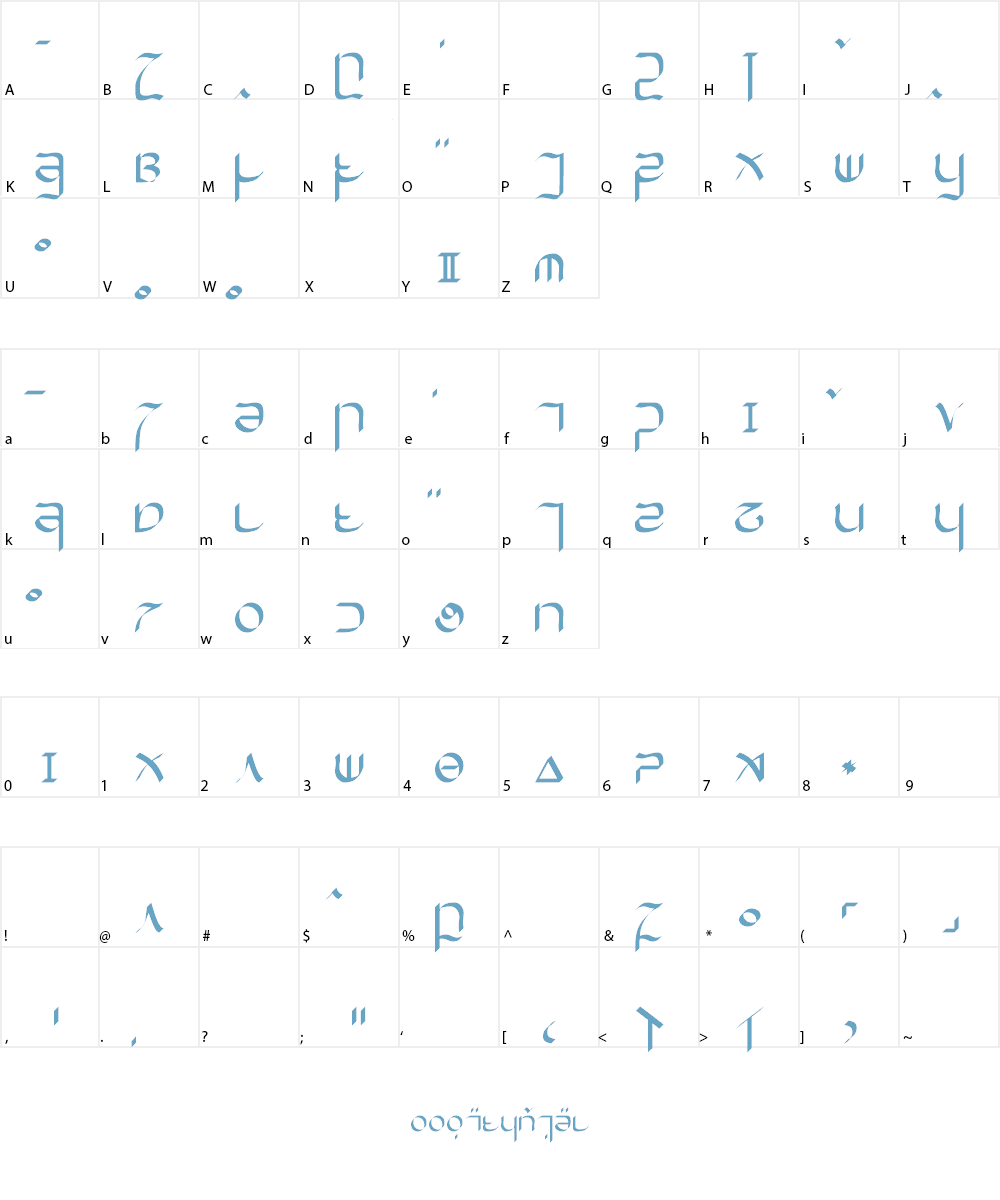
This is a font I created for one of my conlangs, Obrenje. It allows two modes of writing: Alphabet mode and diacritic mode. In the latter, vowels are placed as diacritics above the previous consonants. The alphabet is also easily adapted to other languages than Obrenje.
There is a smooth and professional Bookhand style and a more elaborate Calligraphy style available.